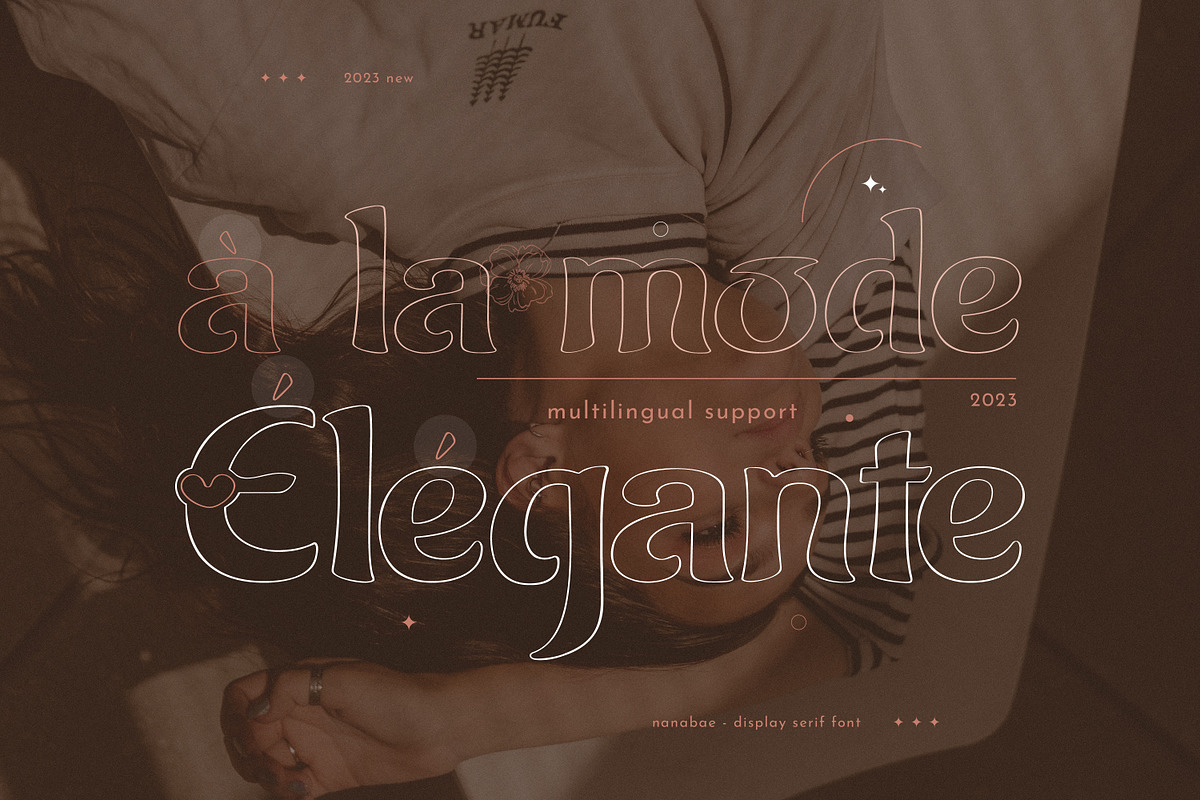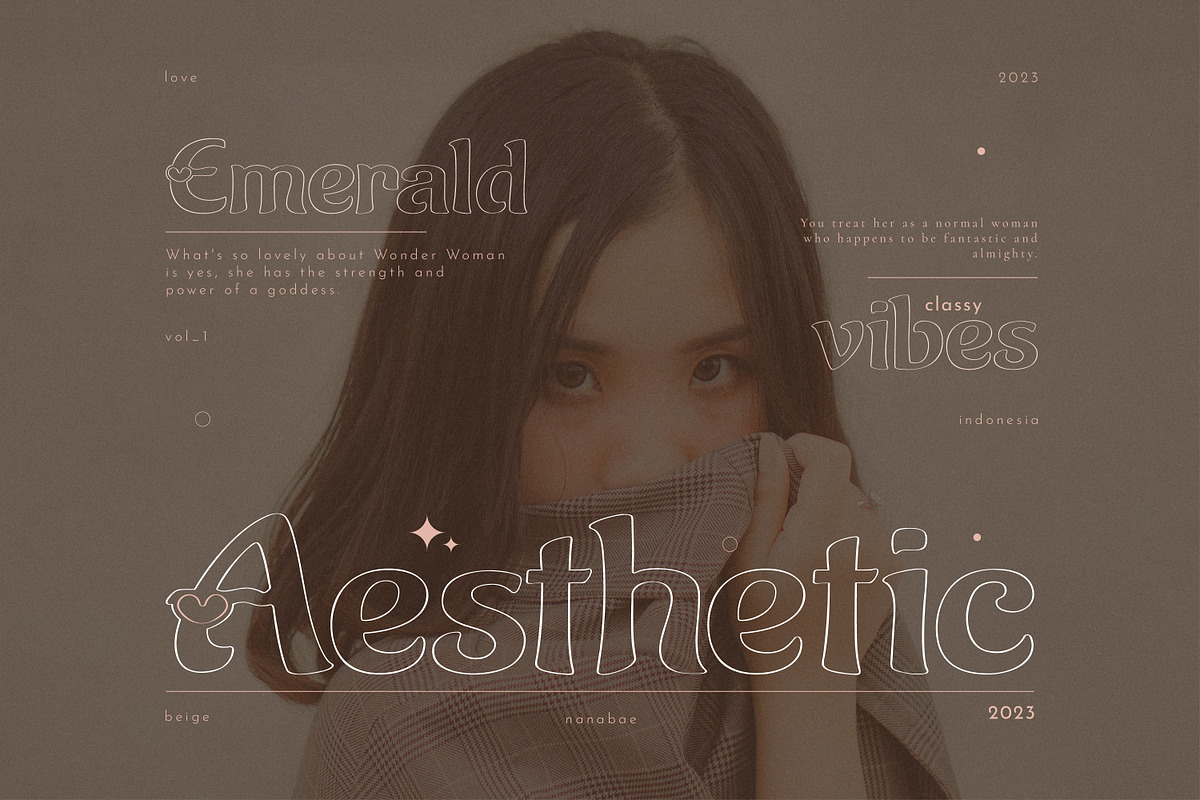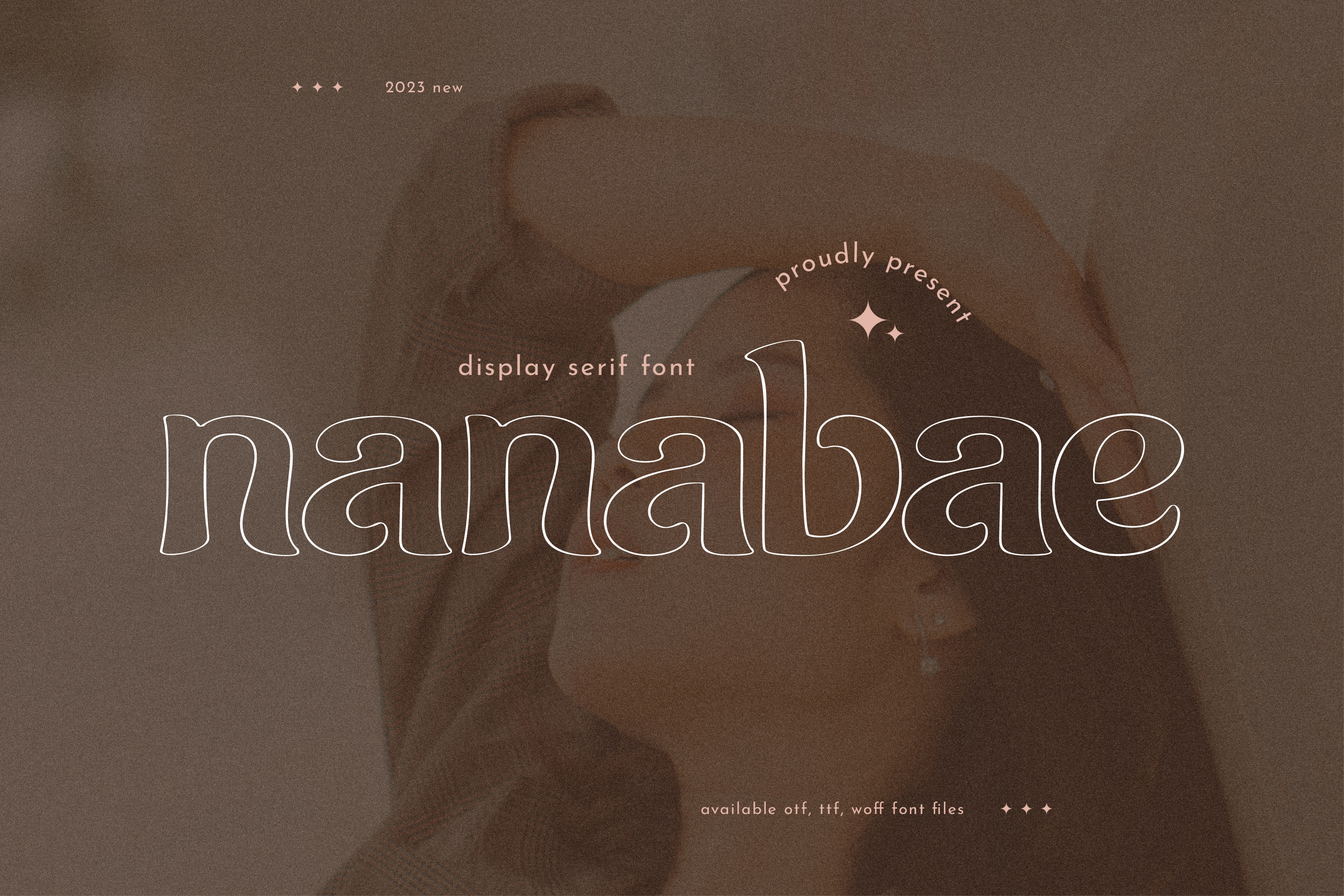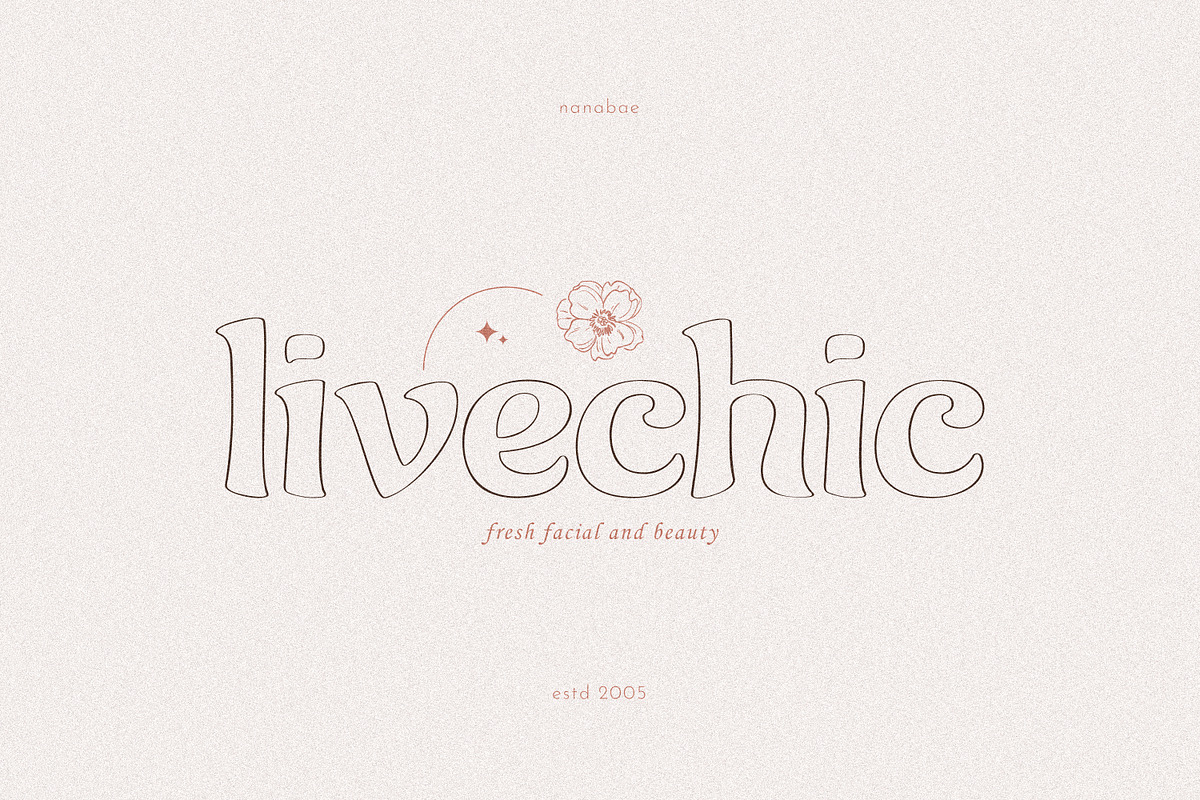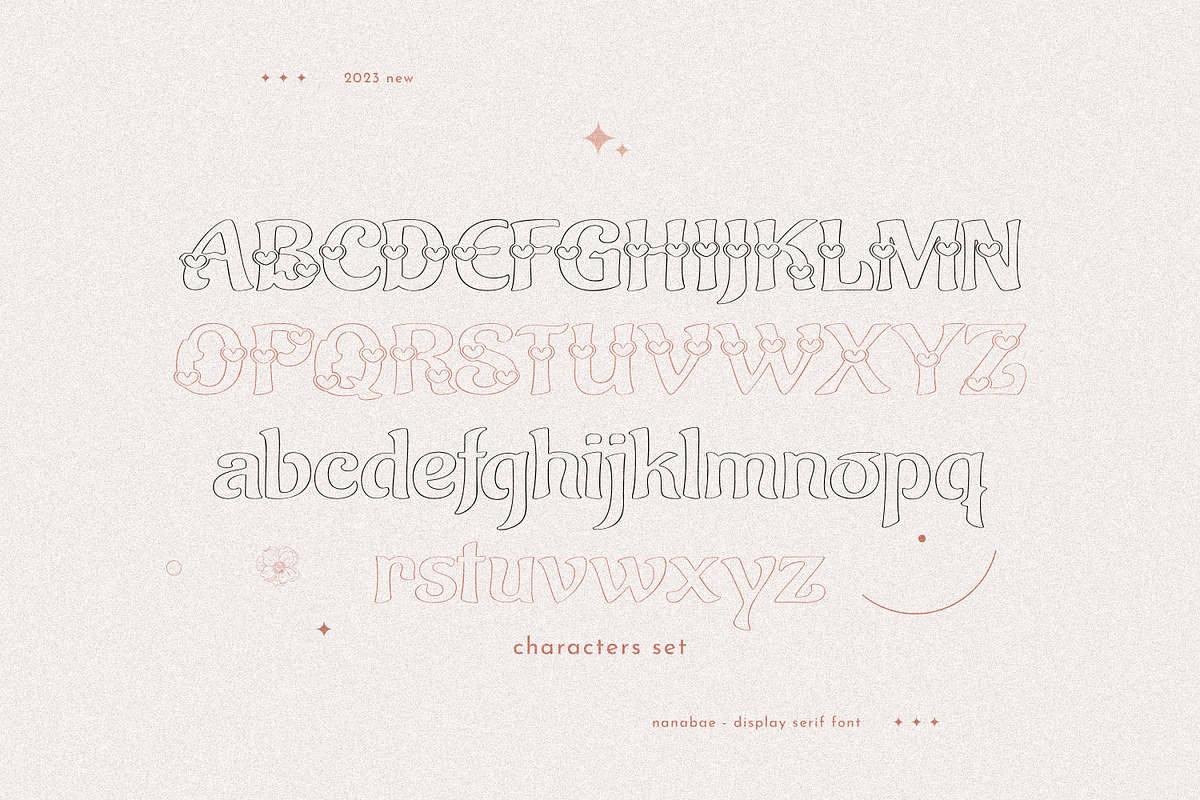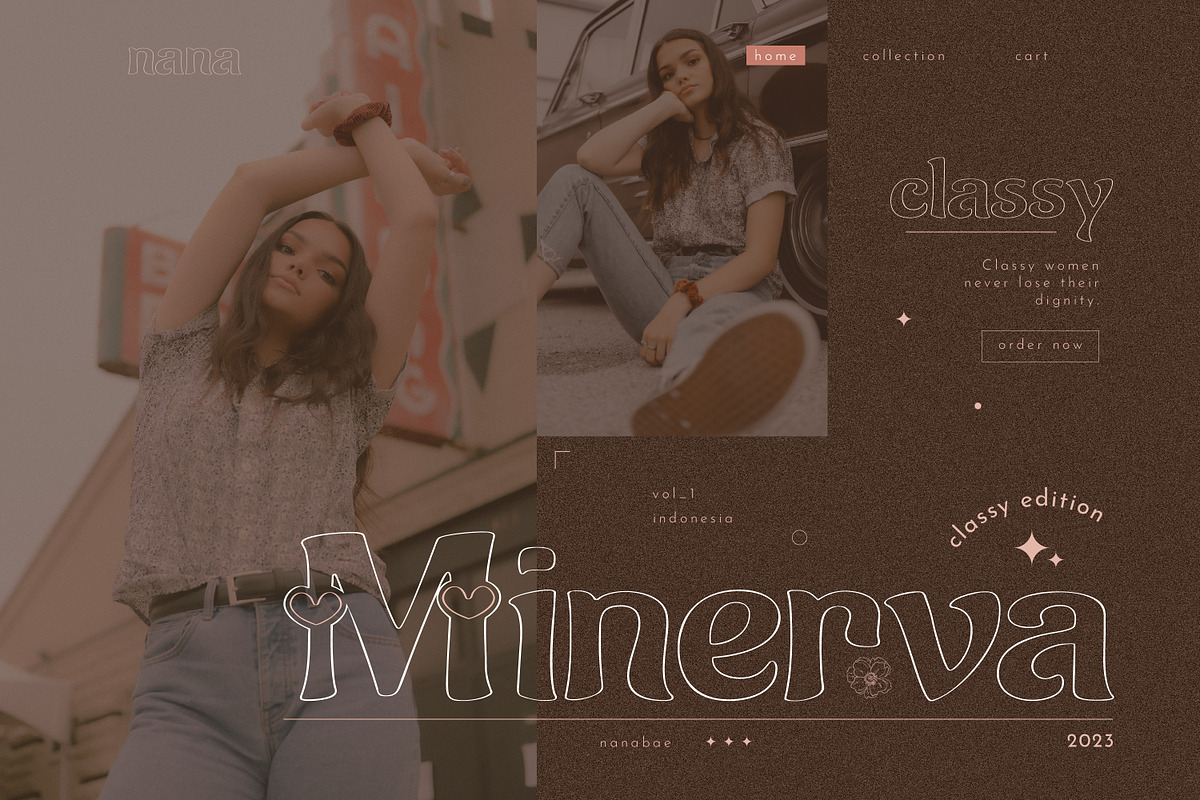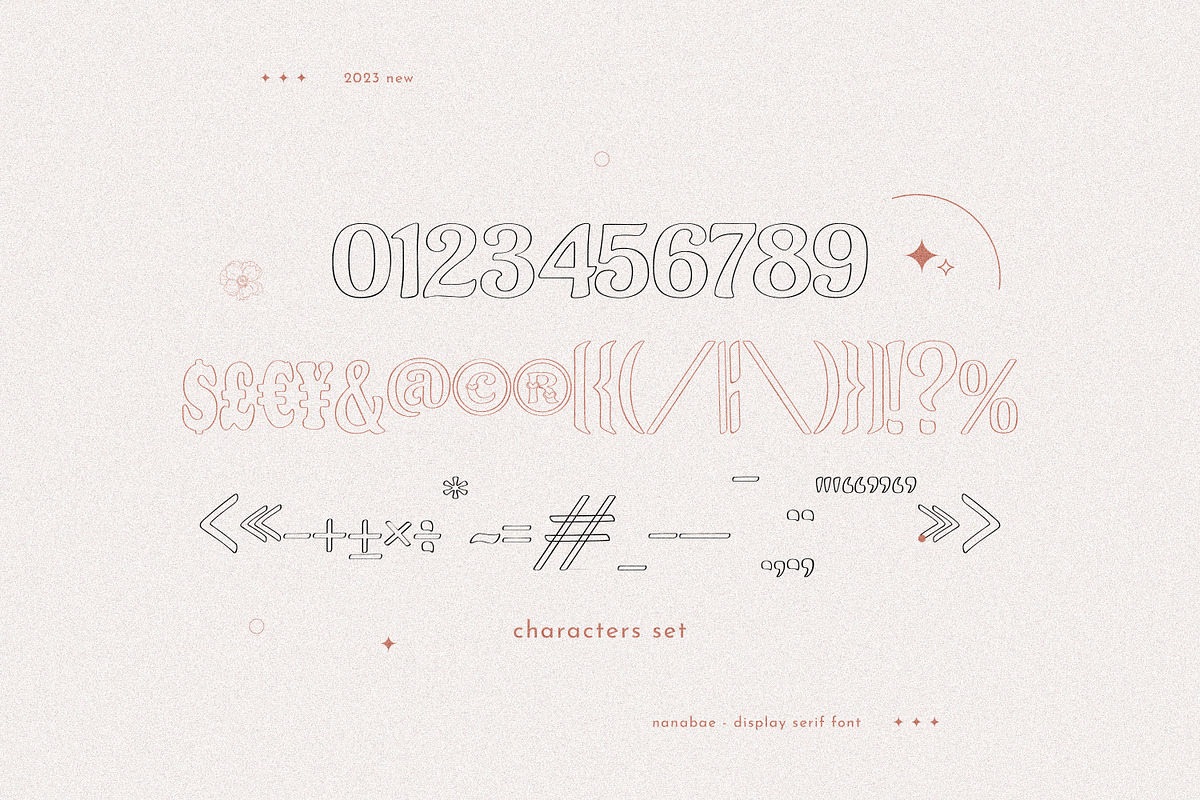
Nanabae Font Serif
Nanabae is an elegant and vintage display font with a timeless feel. The font features classic serifs and a sophisticated design, reminiscent of traditional typography from the 19th century. Perfect for creating elegant headings and titles.
- OpenType Features (Stylistic Set)